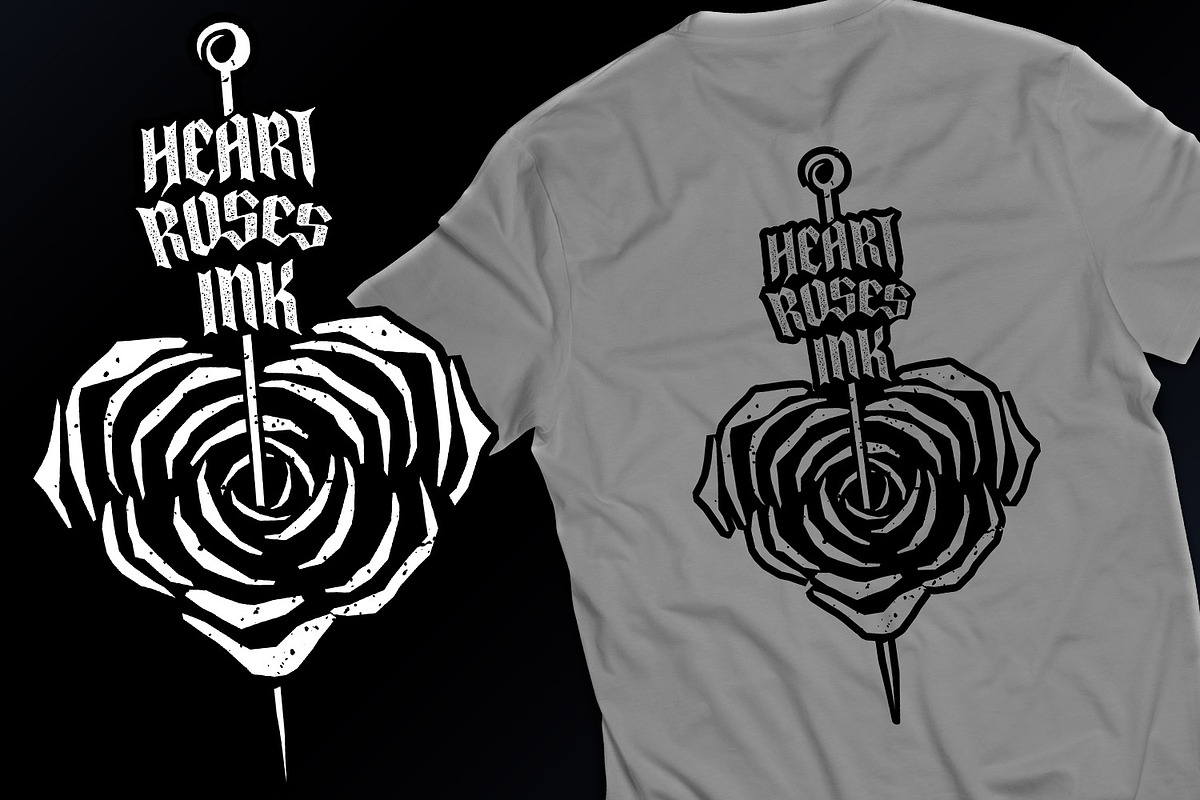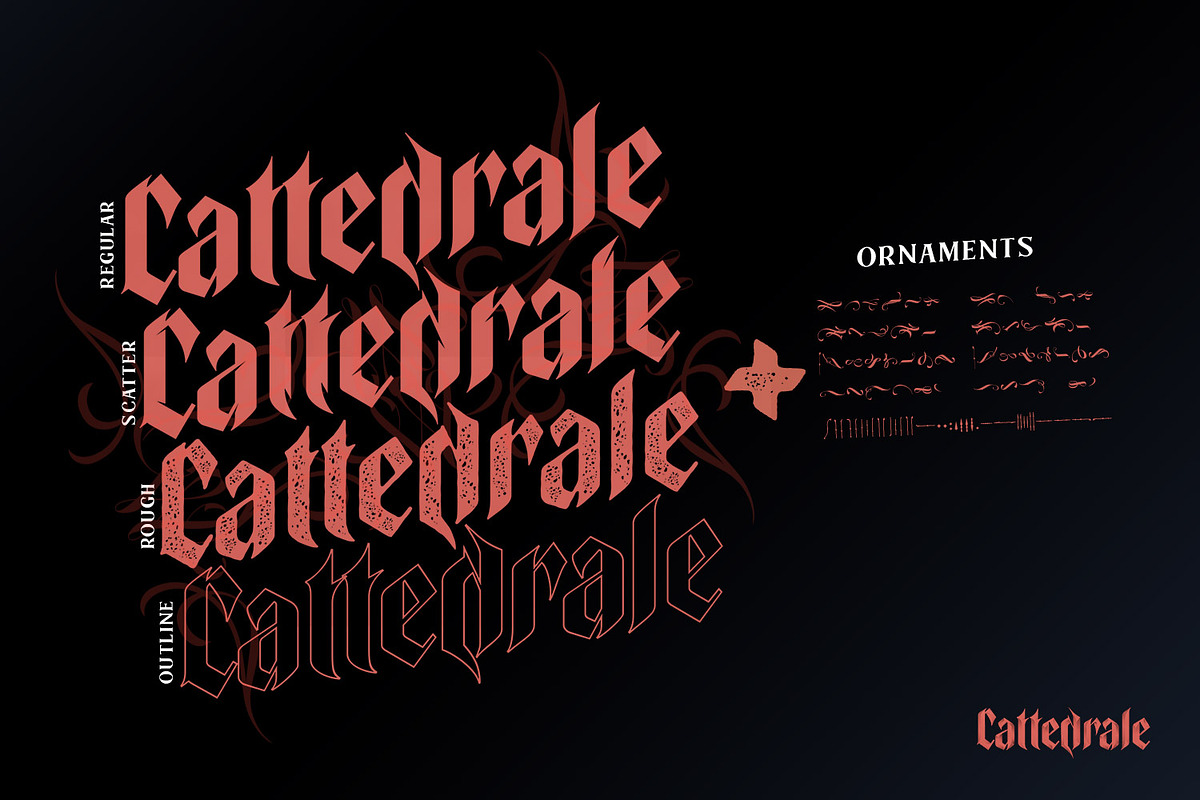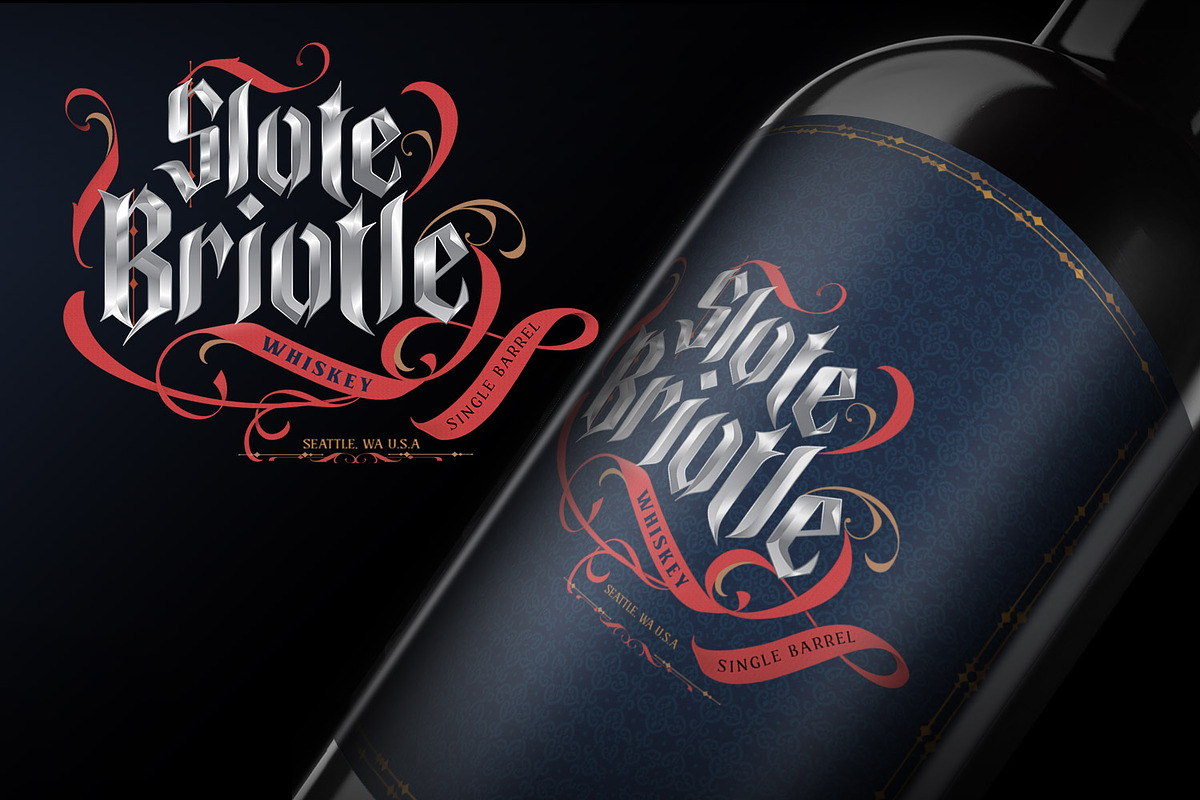
Cattedrale Font
Cattedrale is a unique gothic blackletter font for your design with includes 4 styles plus ornaments including uppercase, lowercase, currency symbol, punctuation, and multilingual support.
Perfect for tattoos clothing, labels and packaging, branding, or any Gothic-themed projects!
Cattedrale Gothic Blackletter Font